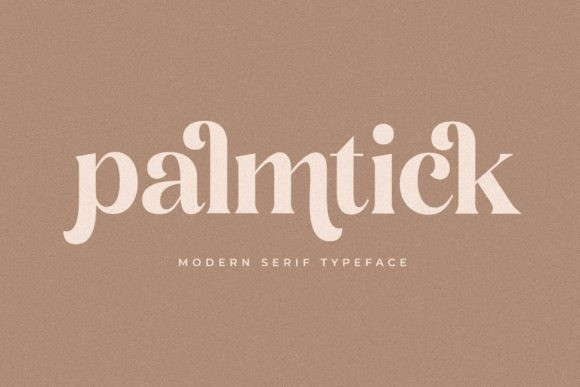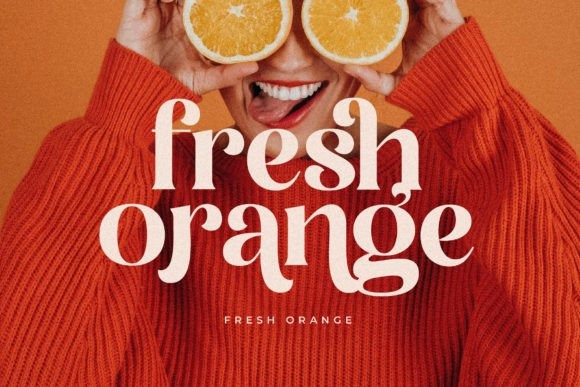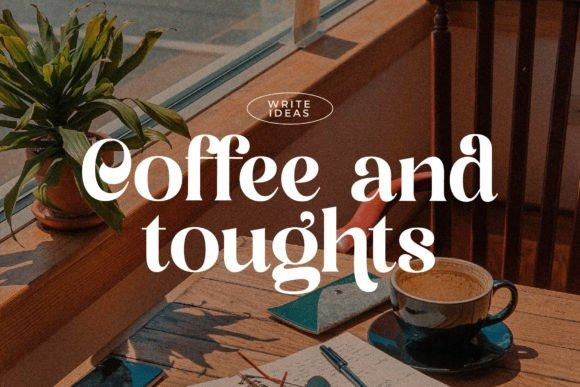
Palmtick Font
Palmtick is a modern and classy serif font with a unique style and fancy look.
This typeface is perfect for an elegant & luxury logo, book or movie title design, fashion brand, magazine, clothes, lettering, quotes, and so much more. This font is PUA encoded, which means you can access all of the glyphs and swashes with ease!